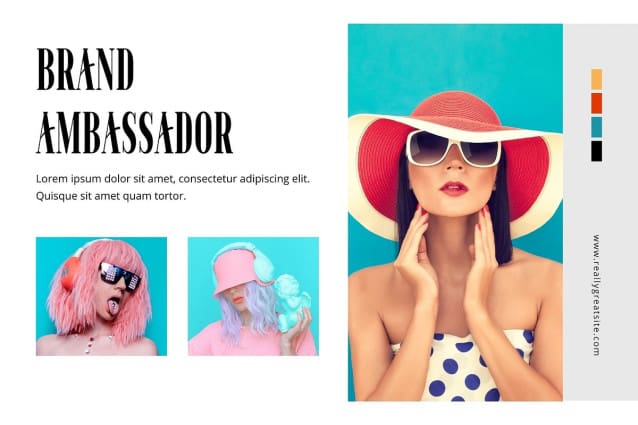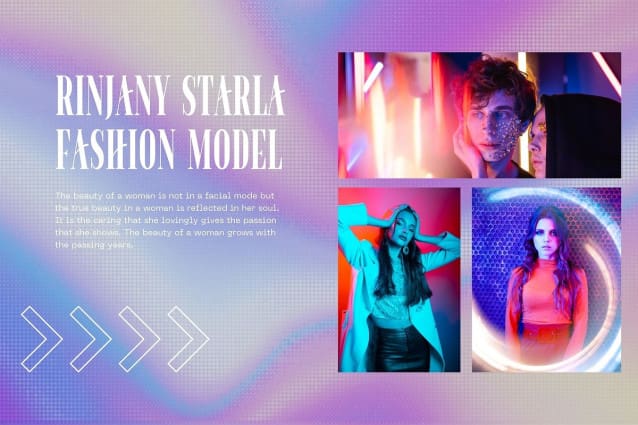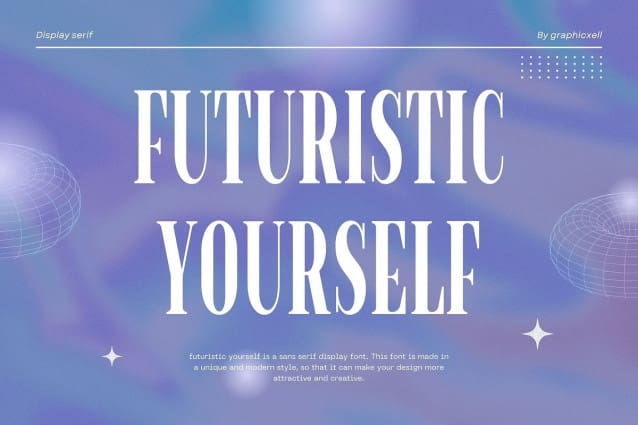
Futuristic Yourself Font
Futuristic Yourself Font inspired by the famous minimalist logo perfect for the purposes of designing templates, brochures, videos, advertising branding, logos, invitation, layout design, elegant crafting, beauty design and more.